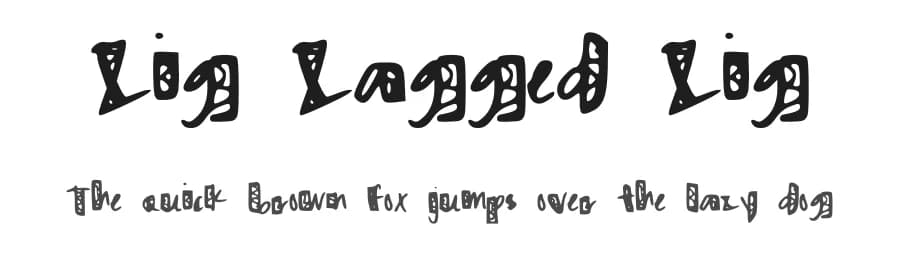
About Zig Zagged Zig Font
Zig Zagged Zig is a script & handwritten font designed by Kalina Hug. It includes 143 glyphs, a medium weight, TTF (TrueType) format, and 133 languages. Zig Zagged Zig is free to download; check the license details on this page before commercial use. Script & handwritten fonts like Zig Zagged Zig work best for wedding invitations, greeting cards, signatures, and elegant branding.
Zig Zagged Zig Font is a script font that shines as a display or heading face. Pair it with a clean sans-serif or serif font for body text β the contrast creates a clear hierarchy while the two styles stay balanced and easy to read.
Zig Zagged Zig Font is a script handwritten typeface by Kalina Hug, ideal for logos, invitations, branding, and creative projects.